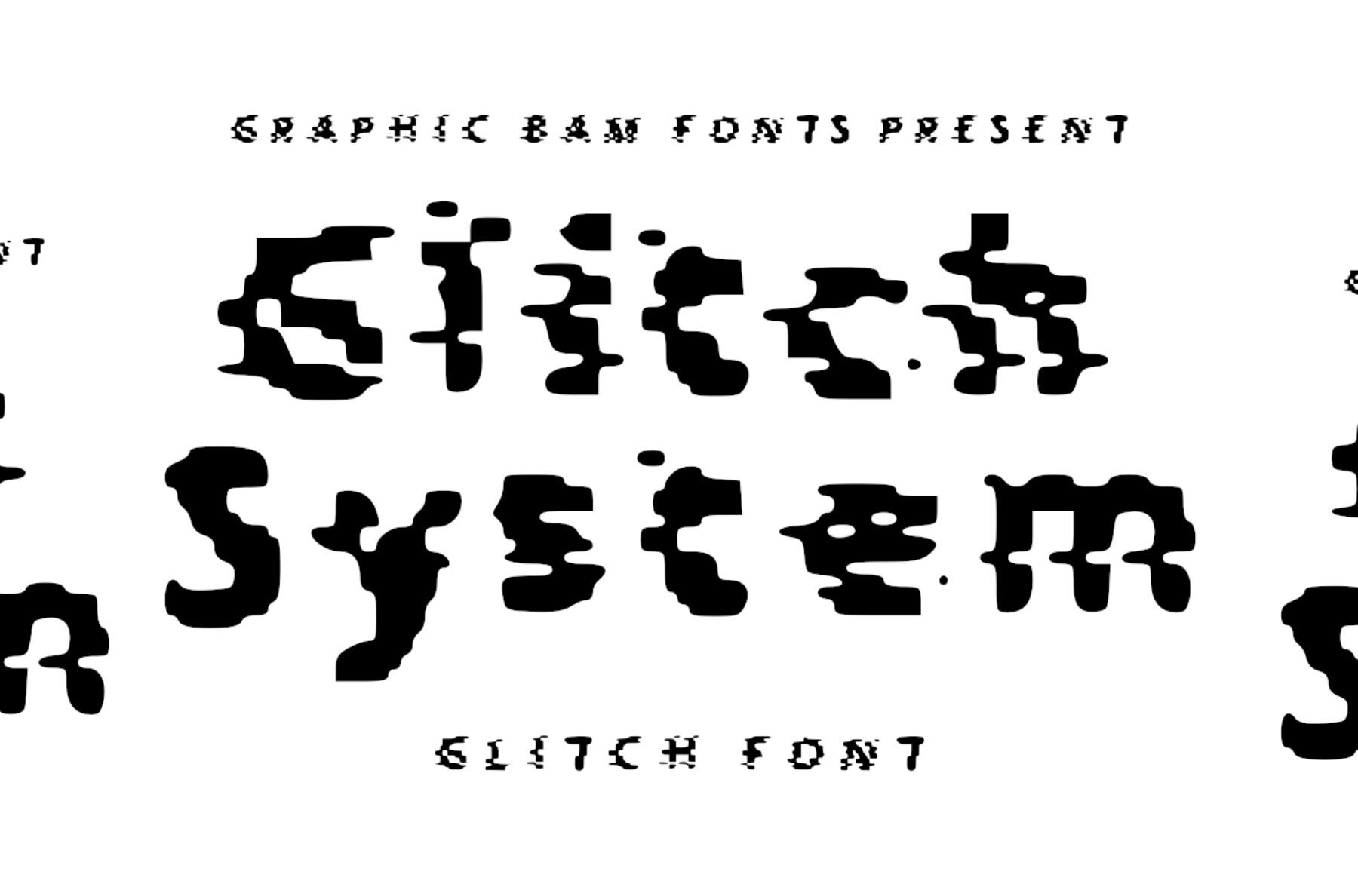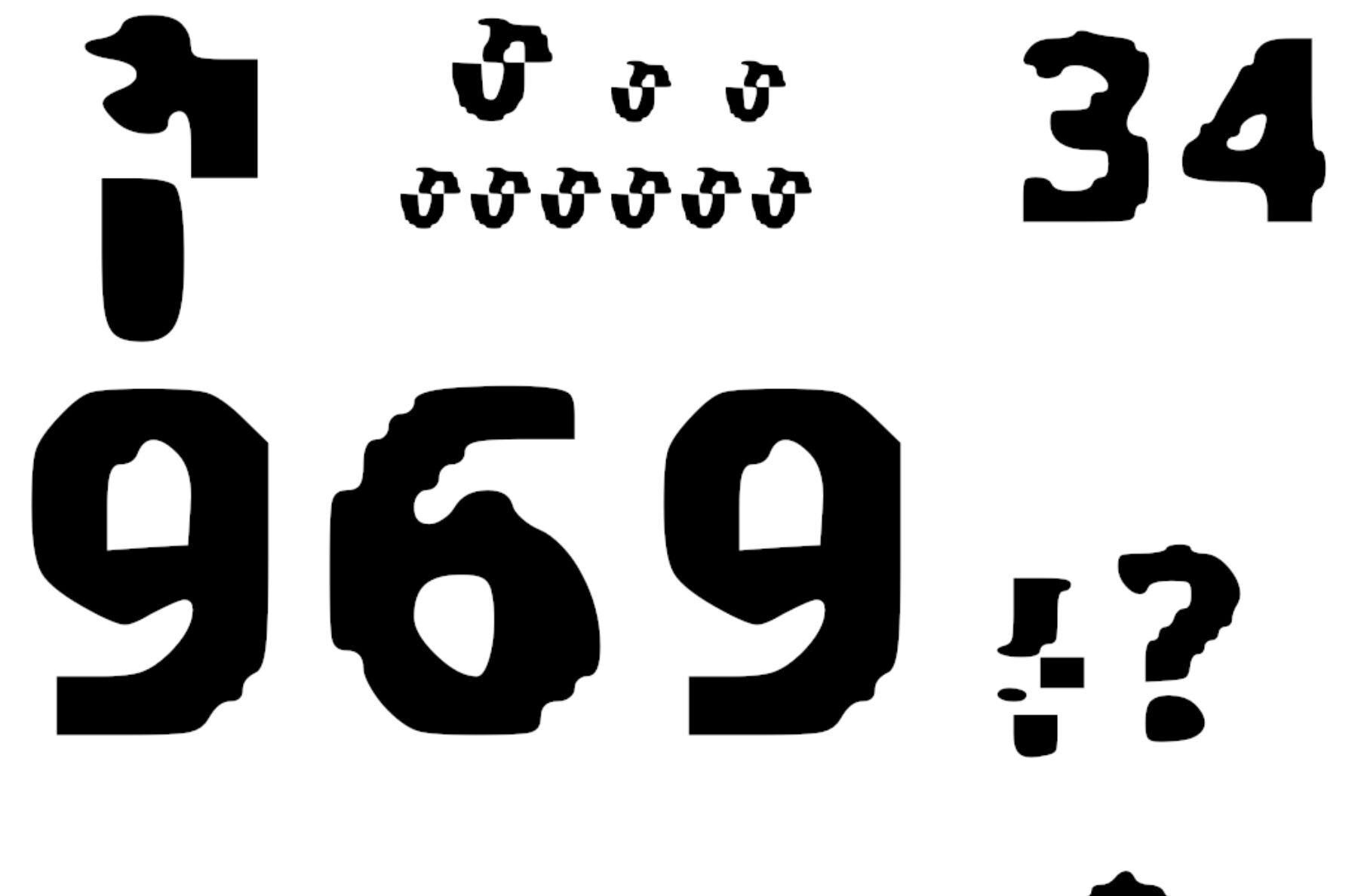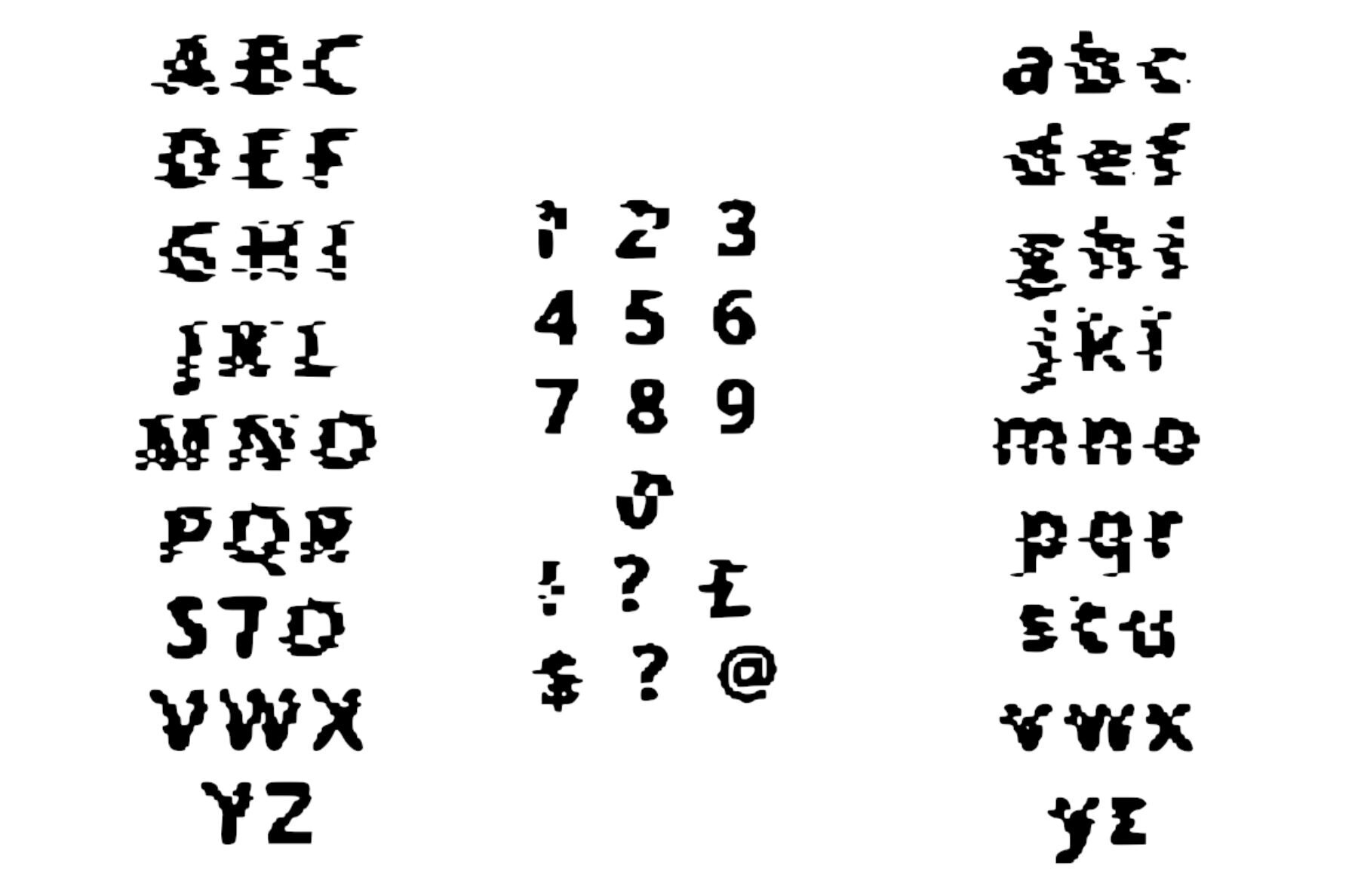
Glitch System Font
Glitch system
Welcome to the world of digital disarray with Glitch System, a unique typeface that brings a hacker's touch straight to your designs. Perfect for those who revel in the aesthetics of the unconventional, this typeface delivers an authentic glitched screen effect that gives the impression of playful chaos.Glitch System Typeface